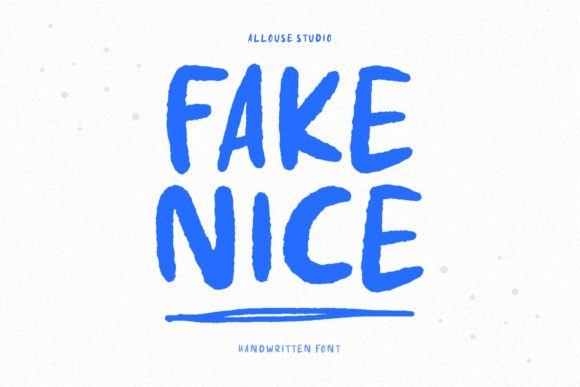
Dive into the world of captivating typography with Fake Nice Font, the bold and thick lettered display font that exudes originality and demands attention. Crafted by the skilled hands of allouse.studio, this font is not just a collection of letters, but an artistic expression that will infuse your designs with a unique and striking aesthetic.
Unlock your creativity and unleash the potential of your designs with Fake Nice Font. From letterheads and titles that command attention to stationery that leaves a lasting impression, this font is your ultimate companion in crafting visuals that resonate with your audience.
With Fake Nice Font, you'll never settle for ordinary typography again. Its bold and thick strokes create an unforgettable visual impact, ensuring that your designs stand out from the crowd. Whether you're a seasoned designer or just starting your creative journey, Fake Nice Font is the key to unlocking your design prowess.
Immerse yourself in the limitless possibilities of Fake Nice Font. Its versatility knows no bounds, allowing you to effortlessly elevate any project. From branding and marketing materials that demand attention to social media posts that captivate audiences, this font is your secret weapon for creating designs that leave a lasting impression.
Don't miss this opportunity to revolutionize your design toolkit. Embrace the power of Fake Nice Font and watch as your creative visions come to life with unparalleled impact. Step into the spotlight and let your designs shine brighter than ever before.